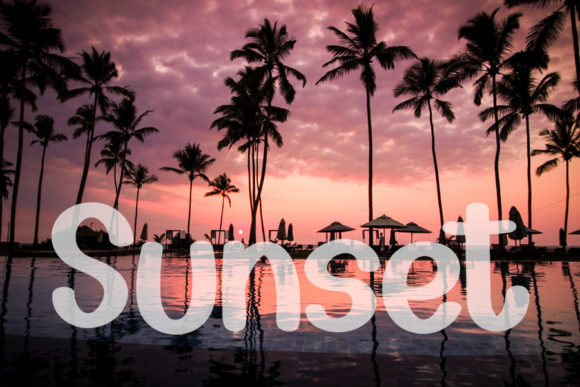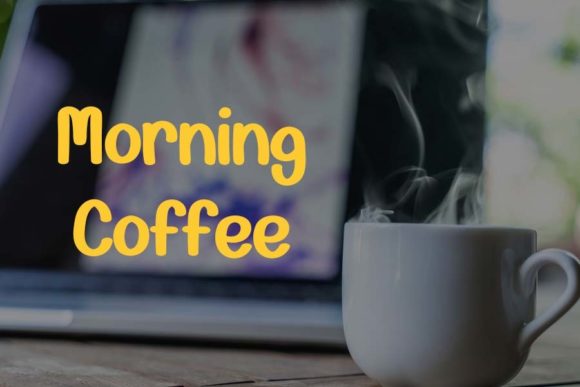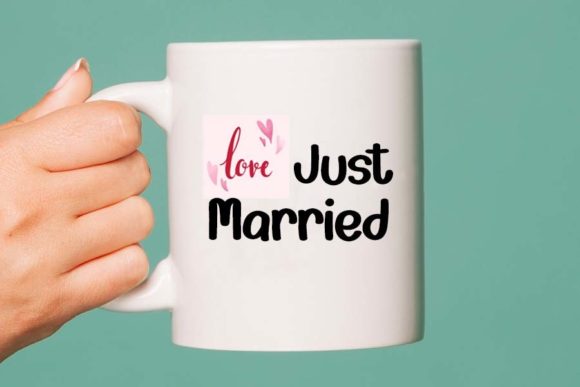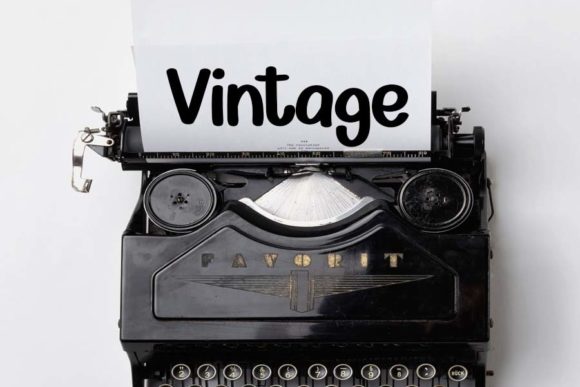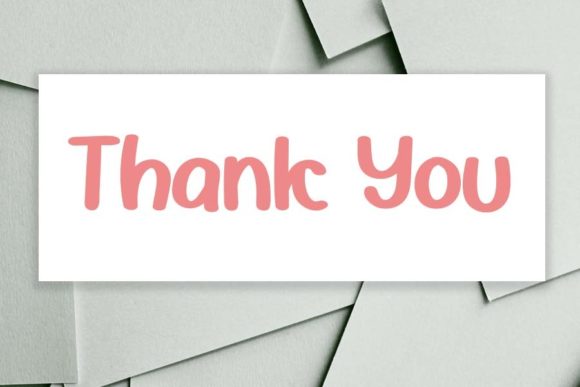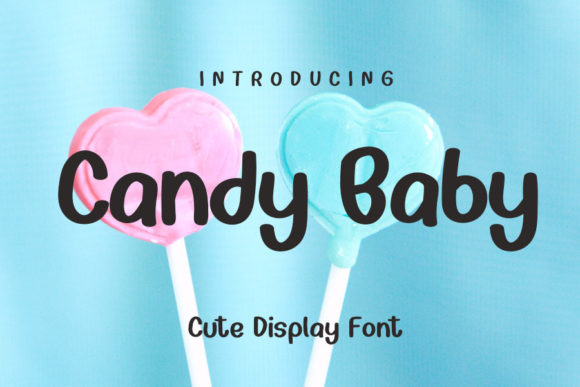
Candy Baby Font: The Sweetest Addition to Your Design Collection
Are you a designer or crafter looking for a font that can add a touch of sweetness and personality to your projects? Look no further than the Candy Baby Font! This adorable handwritten font is perfect for creating unique and eye-catching designs that are sure to stand out. In this article, we’ll take a closer look at the Candy Baby Font, its features, and how you can use it to take your designs to the next level.
What is Candy Baby Font?
Candy Baby Font is a cute and trendy handwritten font that is perfect for a wide range of design projects. Its natural and unique style makes it incredibly fitting for designs that require a personal touch. Whether you’re creating invitations, greeting cards, posters, or social media graphics, Candy Baby Font is sure to add a touch of whimsy and charm.
Features of Candy Baby Font
So, what makes Candy Baby Font so special? Here are just a few of its key features:
- Cute and Trendy: Candy Baby Font is a modern and stylish font that is sure to appeal to designers and crafters who are looking for something fresh and exciting.
- Handwritten Style: The font’s handwritten style gives it a personal and unique touch that is perfect for designs that require a human feel.
- Natural and Unique: Candy Baby Font has a natural and unique style that makes it incredibly versatile and easy to use.
- Easy to Read: Despite its playful style, Candy Baby Font is easy to read and understand, making it perfect for designs that require a clear message.
How to Use Candy Baby Font
So, how can you use Candy Baby Font in your designs? Here are just a few ideas to get you started:
- Invitations: Use Candy Baby Font to create adorable invitations for parties, weddings, and other special occasions.
- Greeting Cards: Add a personal touch to your greeting cards with Candy Baby Font, perfect for birthdays, holidays, and other celebrations.
- Posters: Create eye-catching posters for events, promotions, and products using Candy Baby Font.
- Social Media Graphics: Use Candy Baby Font to create engaging social media graphics that are sure to stand out.
Tips for Using Candy Baby Font
Here are a few tips for using Candy Baby Font in your designs:
- Pair with Other Fonts: Experiment with pairing Candy Baby Font with other fonts to create a unique and interesting design.
- Use Bright Colors: Bring out the playful style of Candy Baby Font with bright and bold colors.
- Experiment with Sizes: Don’t be afraid to experiment with different font sizes to add emphasis and create visual interest.